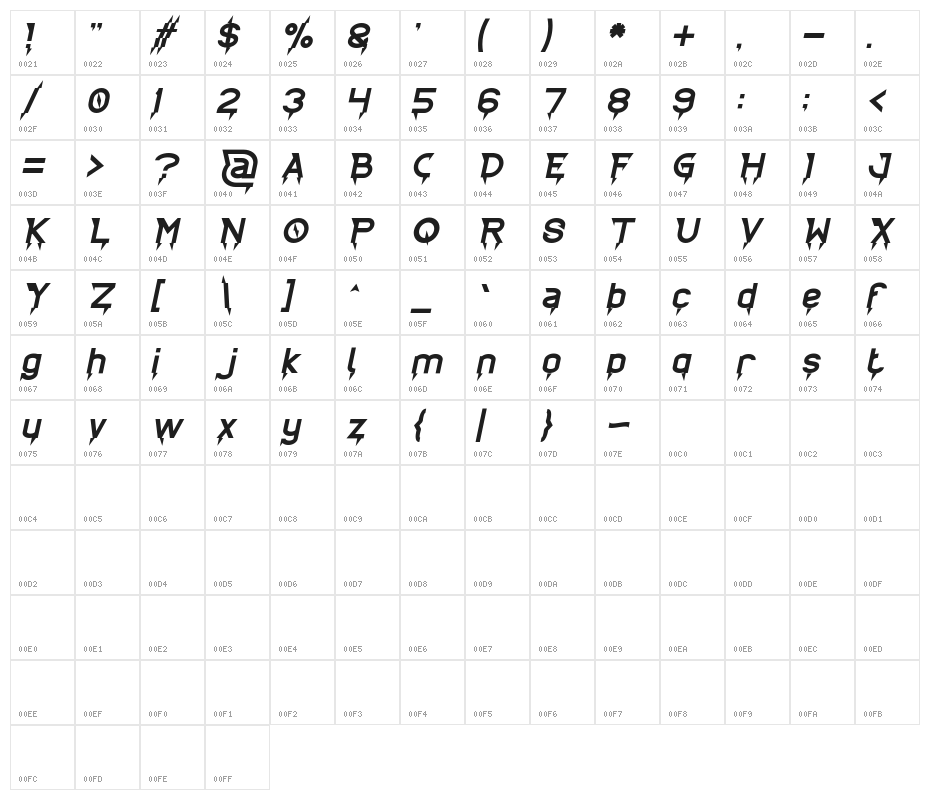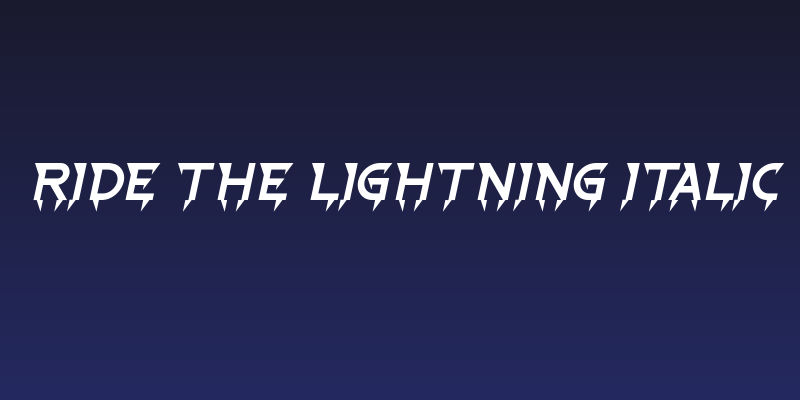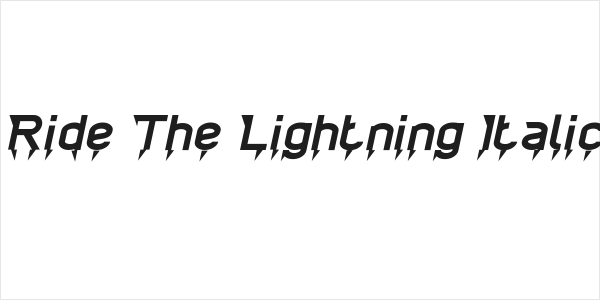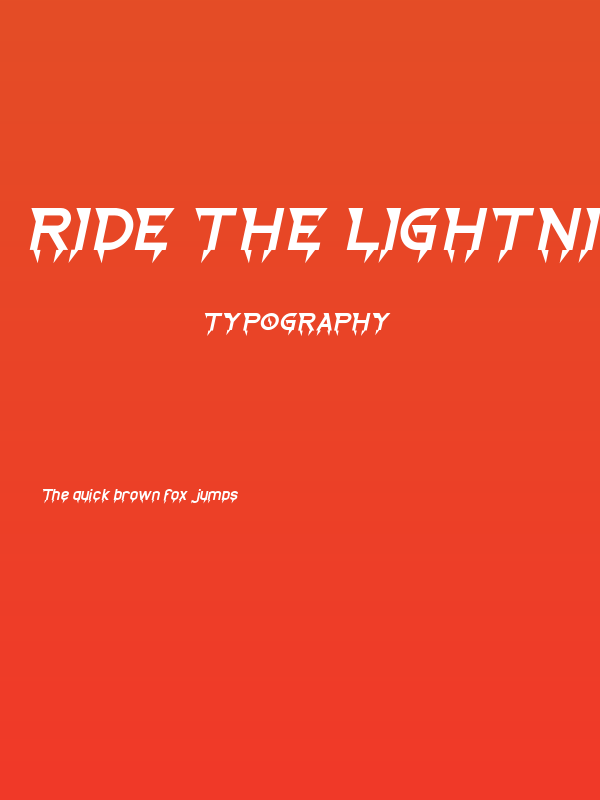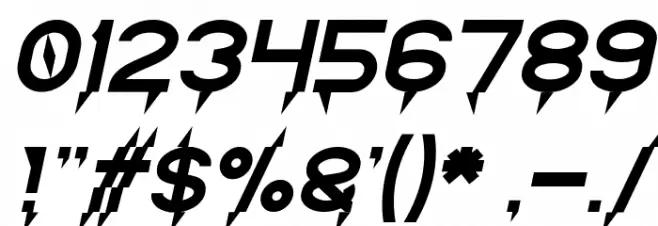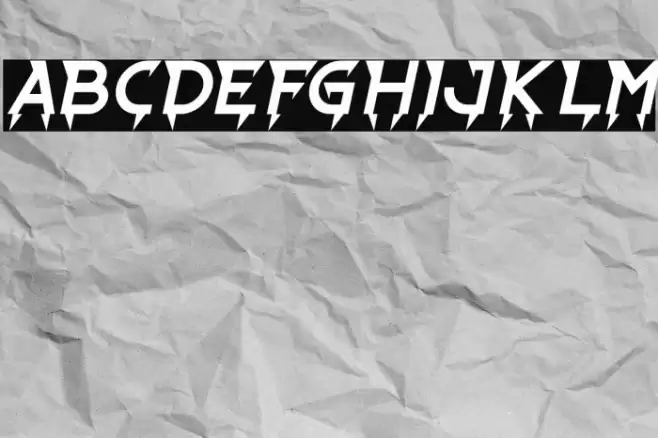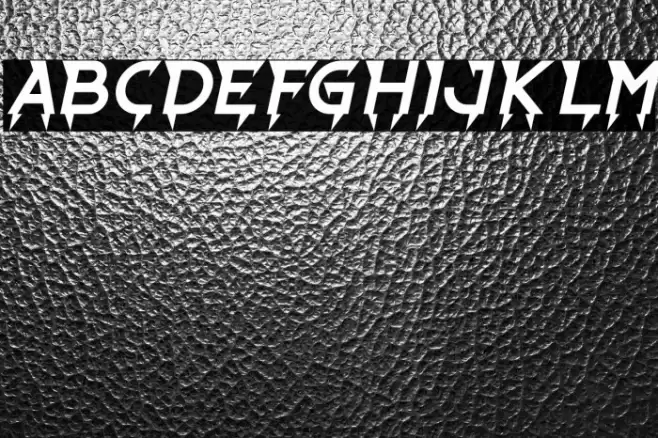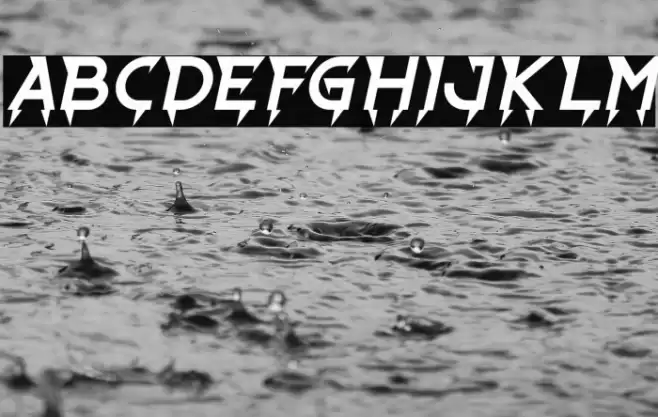
Ride The Lightning Italic Font
This font features a dynamic and electrifying design, characterized by sharp, angular edges that mimic the appearance of lightning bolts. The italicized style adds a sense of movement and energy, making it stand out with its bold and striking appearance. Each character is uniquely crafted to maintain a consistent theme of electricity and power, with jagged edges and slanted forms that convey a sense of speed and intensity. The font is highly decorative, making it ideal for projects that require a strong visual impact. Its unique style is both modern and edgy, appealing to those looking for a font that breaks away from traditional design norms.
| Overall Style | Modern, Edgy |
| Proposed Projects | Ideal for music album covers, event posters, sports branding, and any project needing a high-energy, electrifying aesthetic. |